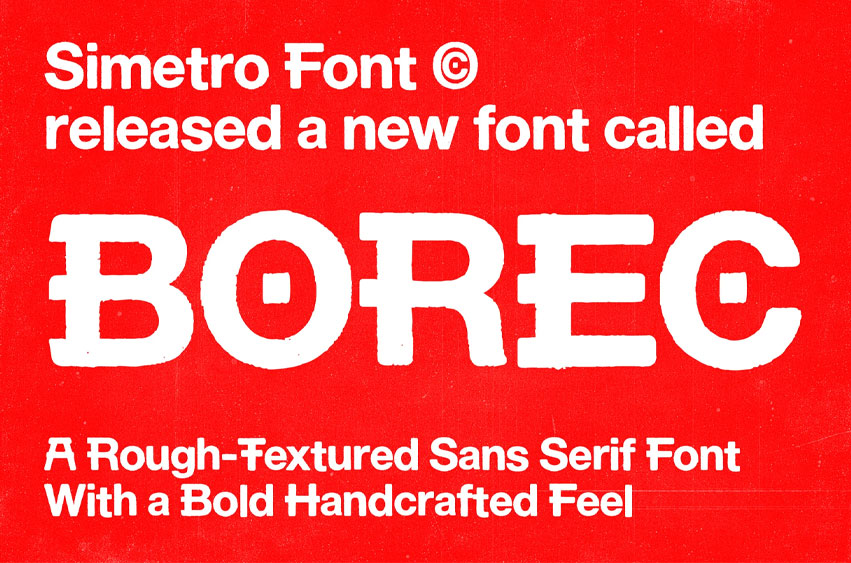
Borec Font is a bold rough-textured sans serif font designed to capture the raw energy of urban typography. With its slightly distressed edges and handcrafted character, Borec delivers a strong visual presence that feels authentic, expressive, and full of personality.
The textured letterforms create a natural printed look, giving the typeface a tactile quality that works beautifully in modern design projects. Borec blends bold geometric structure with subtle rough details, resulting in a typeface that feels both contemporary and organic.